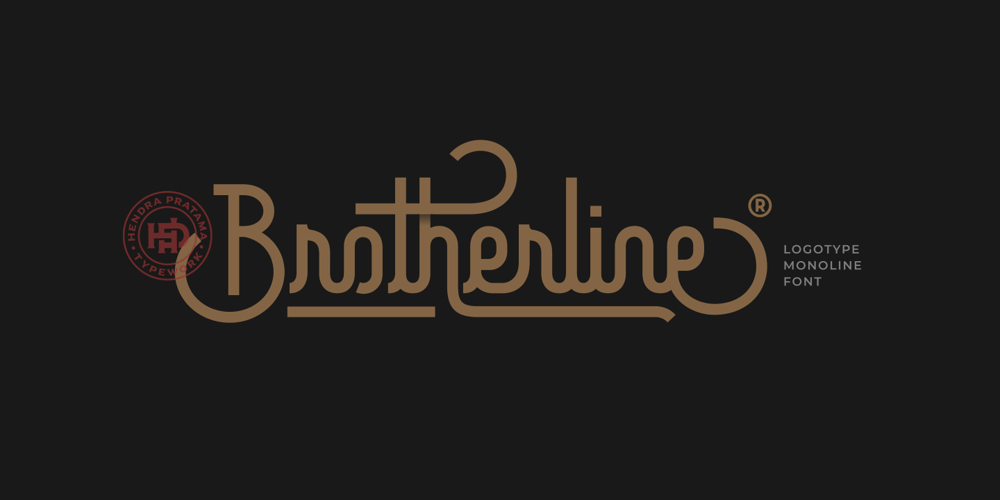
Brotherline Font Family was designed by Hendra Pratama and published by Hendra Pratama. Brotherline contains 1 styles and family package options. Brotherline is a connected script built from a single bold mono-line, inspired by hand-lettering style and various calligraphy letterforms.The first idea with this font is to create a font for Logotypes. Curves are smooth and flow with very nice circle shapes.This font is great for logos, logotypes, packaging, and store-front or signboard. NOTE:To access the alternate glyphs, you will need a program that supports OpenType Features.Activate the Ligature (liga) and Contextual Alternates (calt) for better experience.